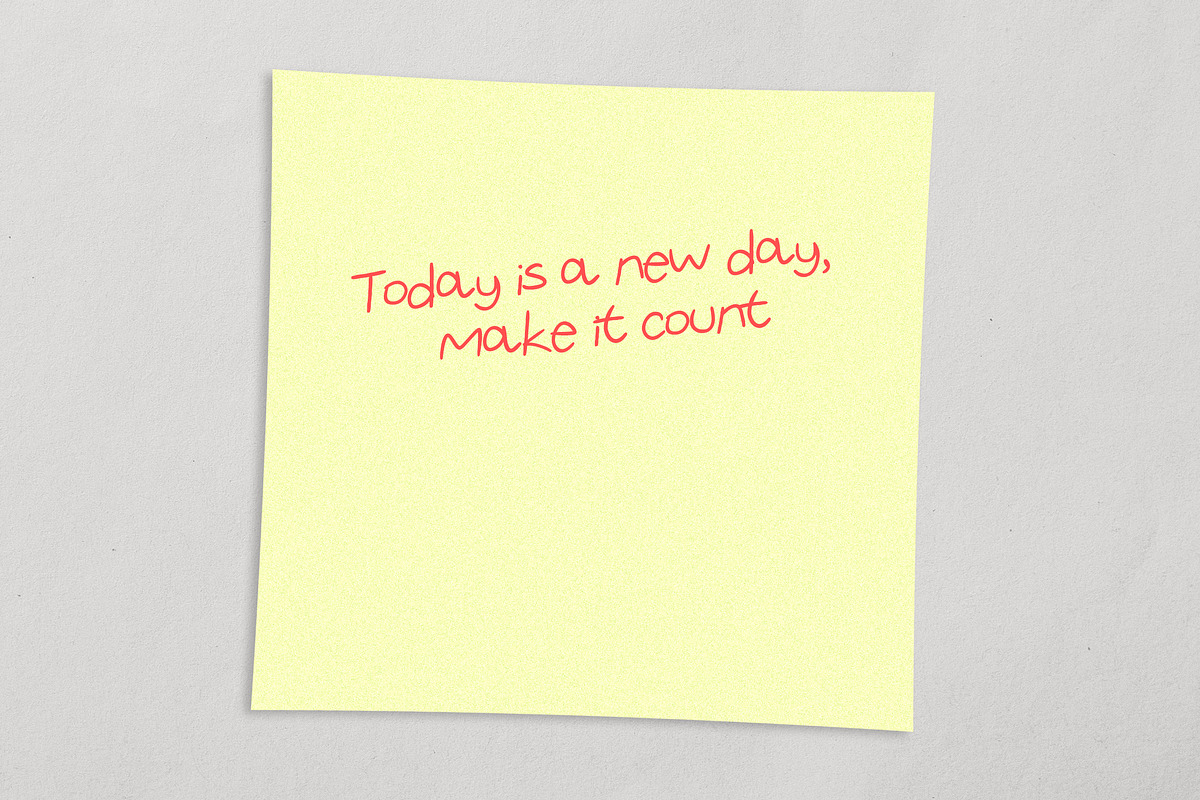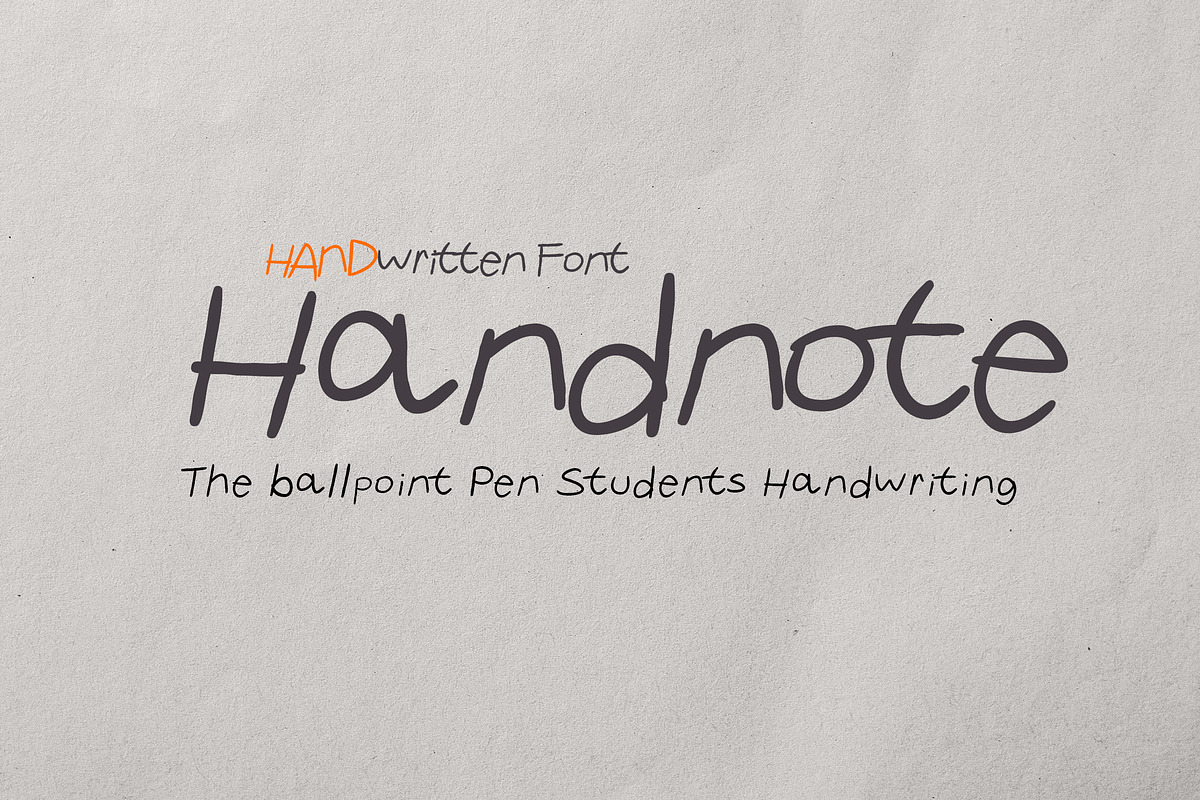
Handnote - Ballpoint pen handwriting
Handnote is a handwritten font designed to mimic authentic ballpoint pen handwriting. It comes in regular, and also offers an oblique version with a more pronounced slant (Italic). perfect for creating handwritten notes, quotes, logos, or just adding a hand-written touch to any project